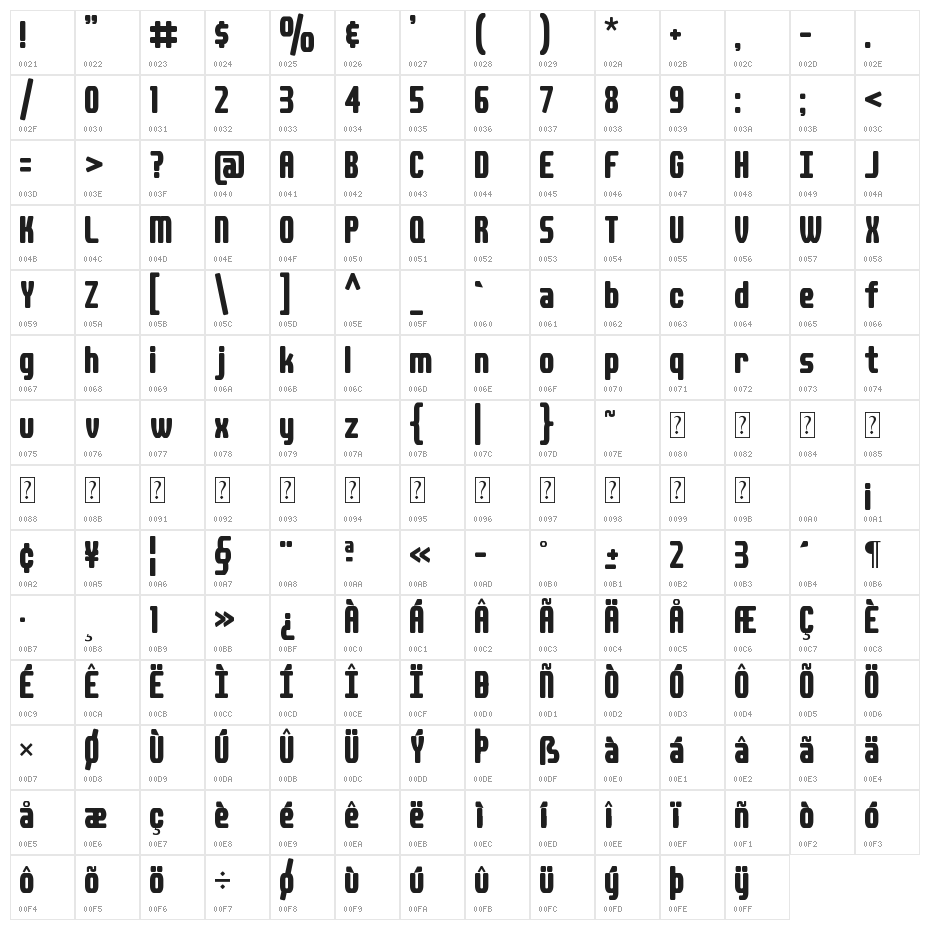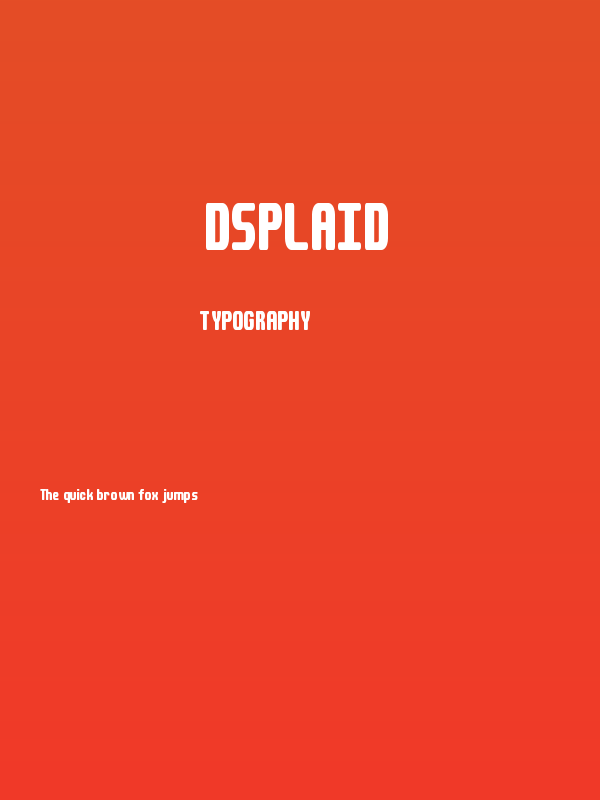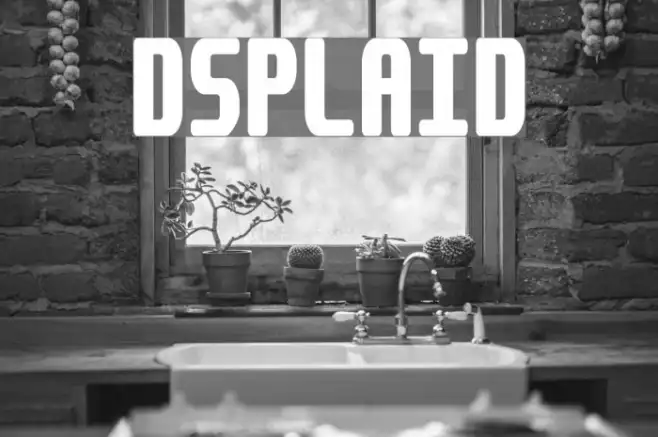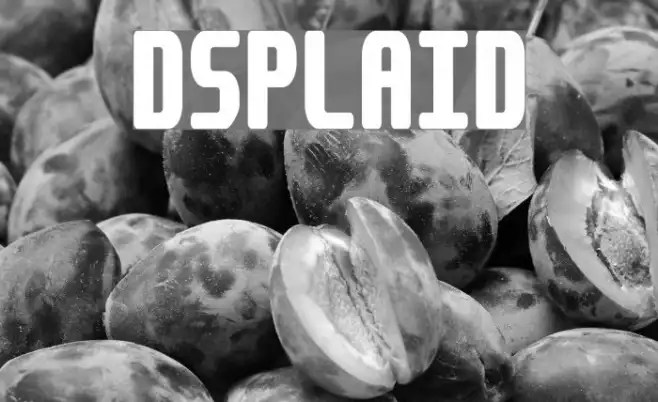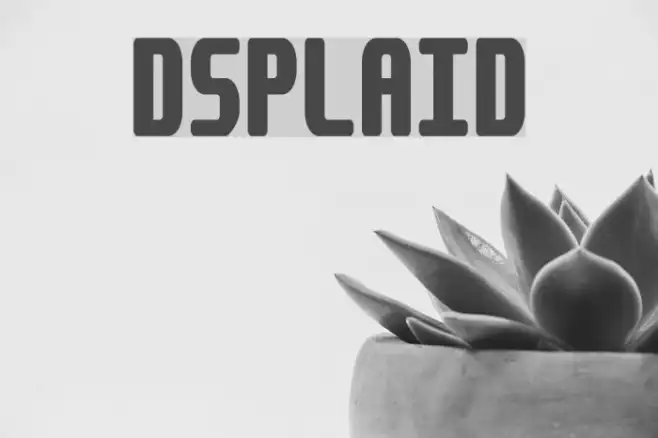
DSPLAID Font
DSPLAID Description
This font features a bold, rounded style with a strong presence and a playful yet structured appearance. The characters are uniformly thick, providing a consistent and cohesive look across both uppercase and lowercase letters. The rounded edges soften the overall feel, making it approachable and friendly. The numerals and special characters maintain the same boldness and rounded characteristics, ensuring uniformity throughout. This font is ideal for projects that require a strong, eye-catching display with a touch of whimsy.
| Proposed Projects | Ideal for posters, logos, children's books, and branding materials that require a bold and friendly typeface. |